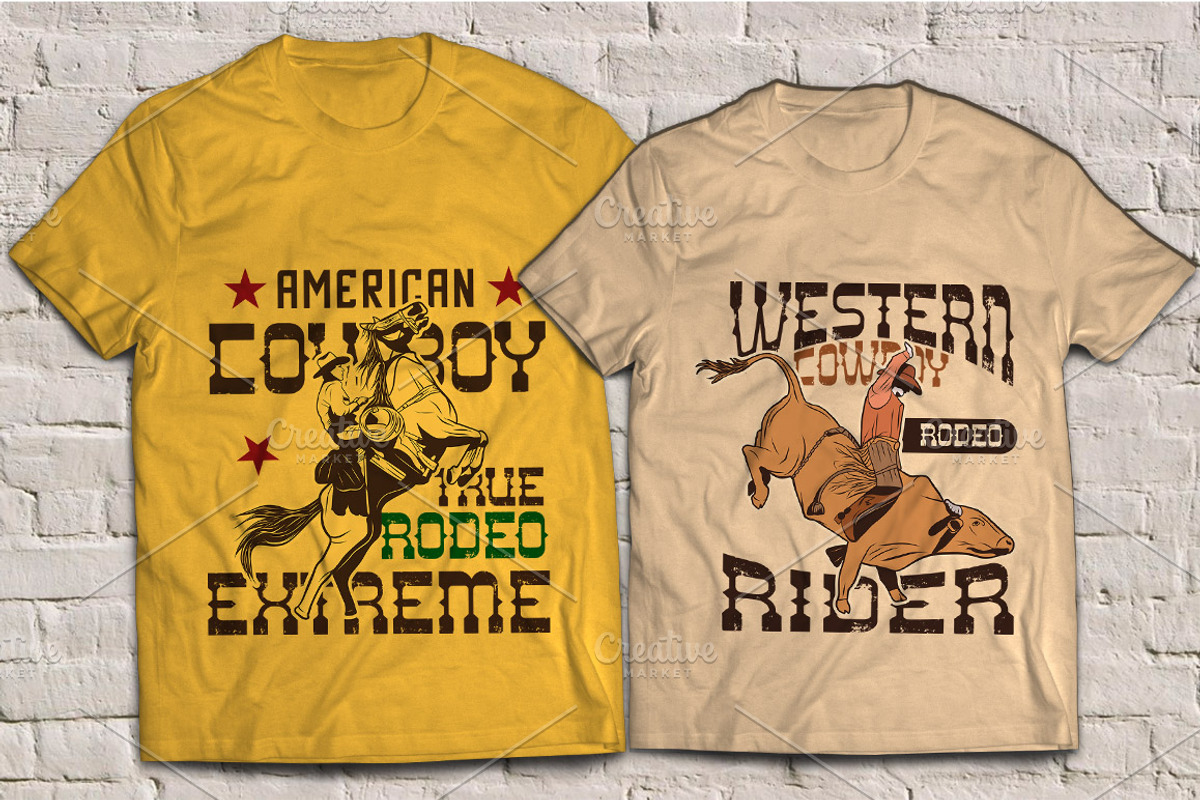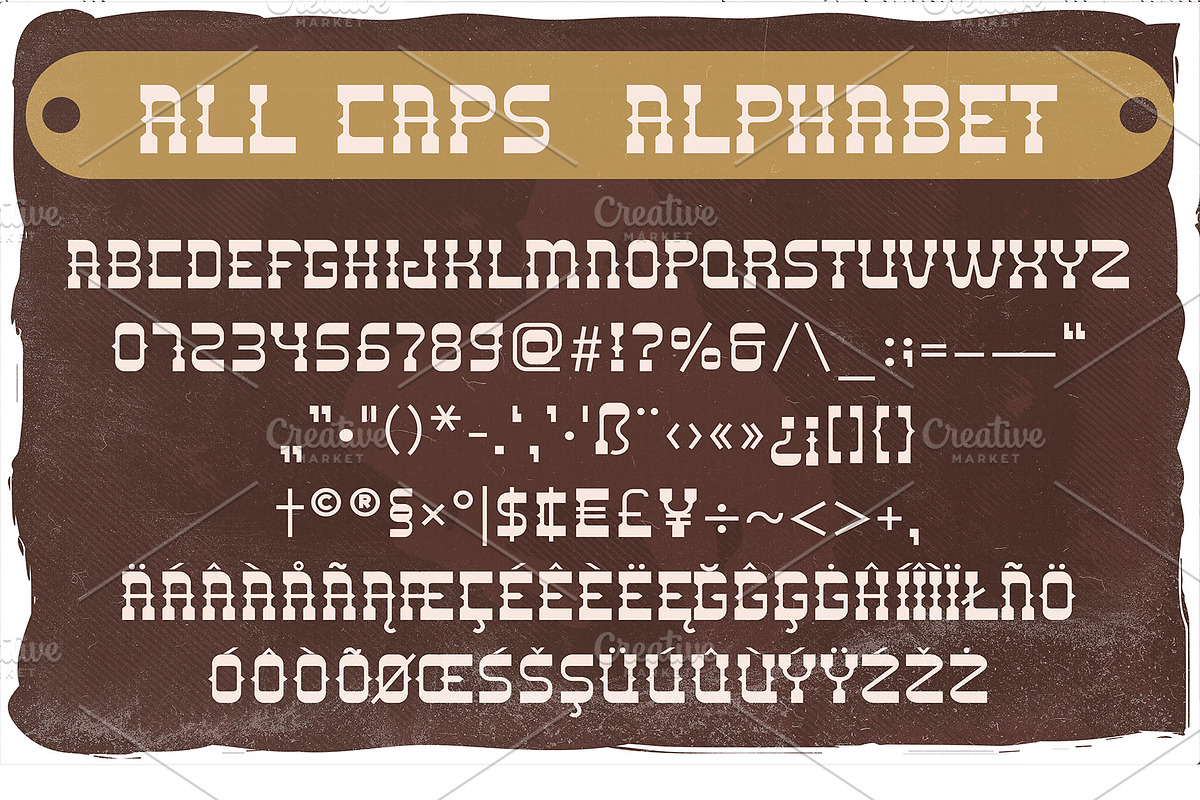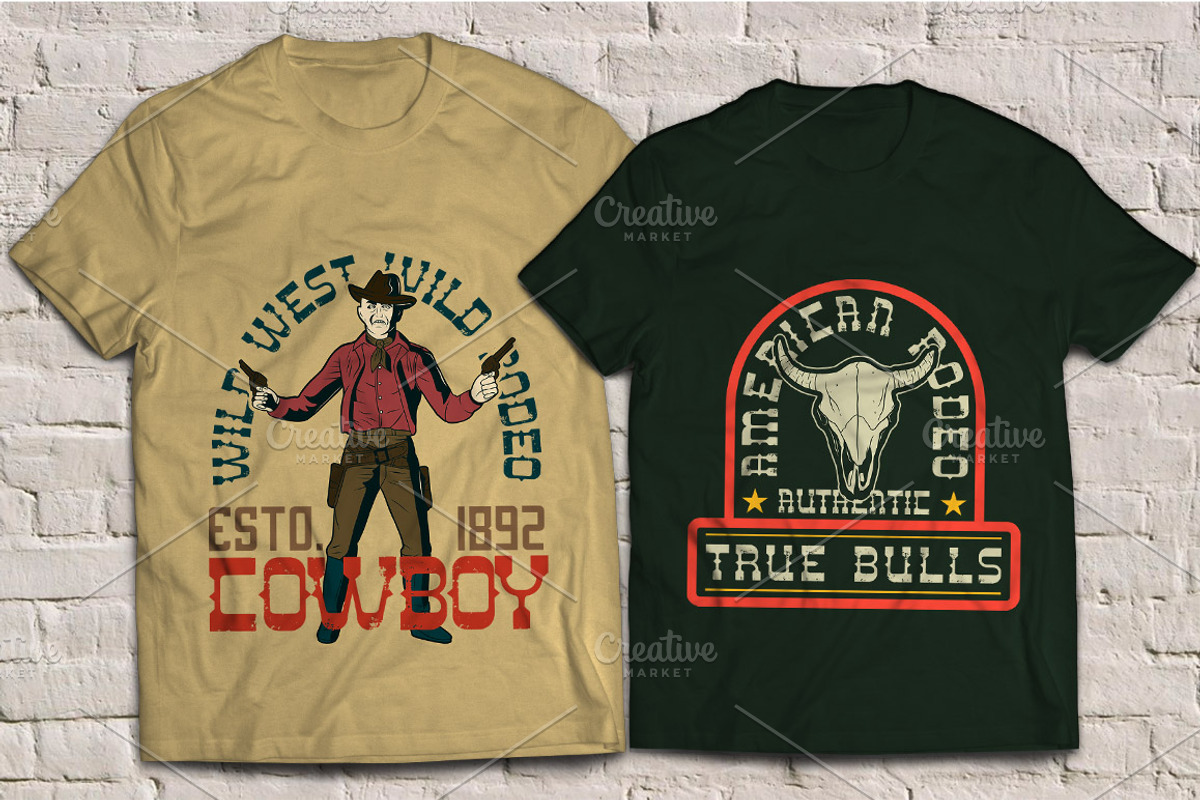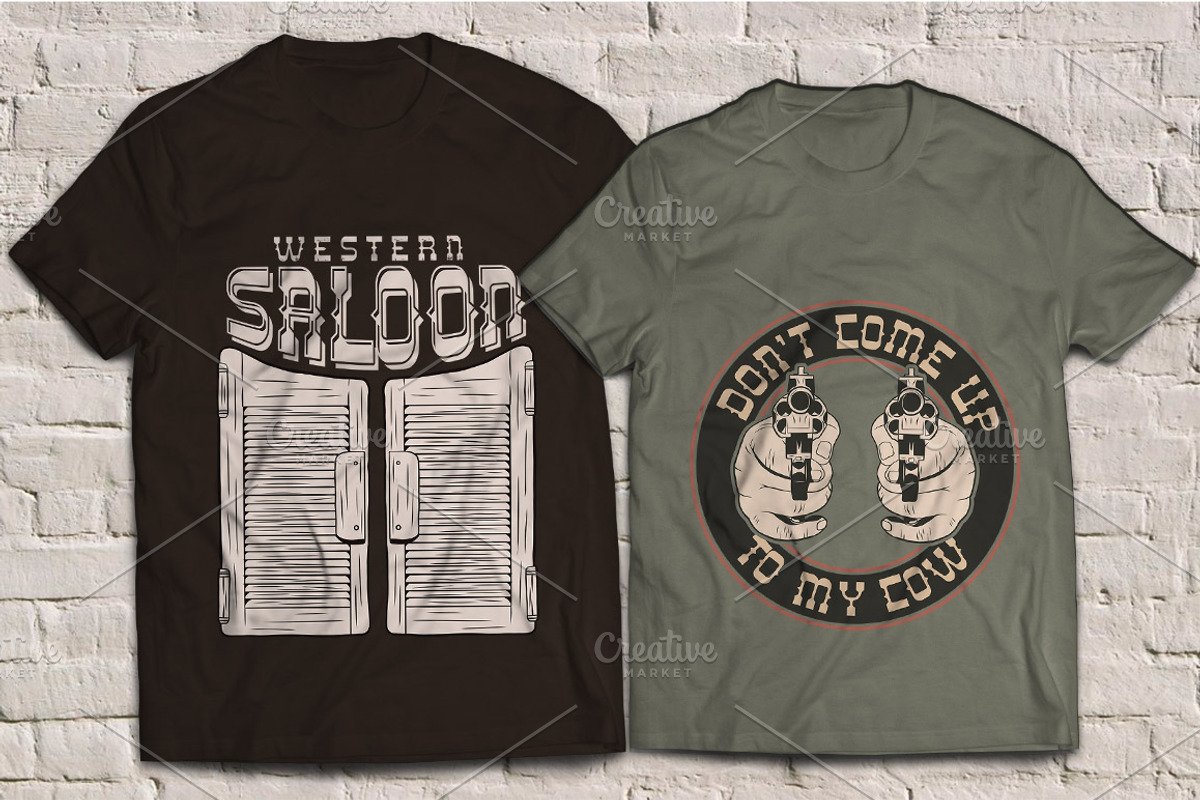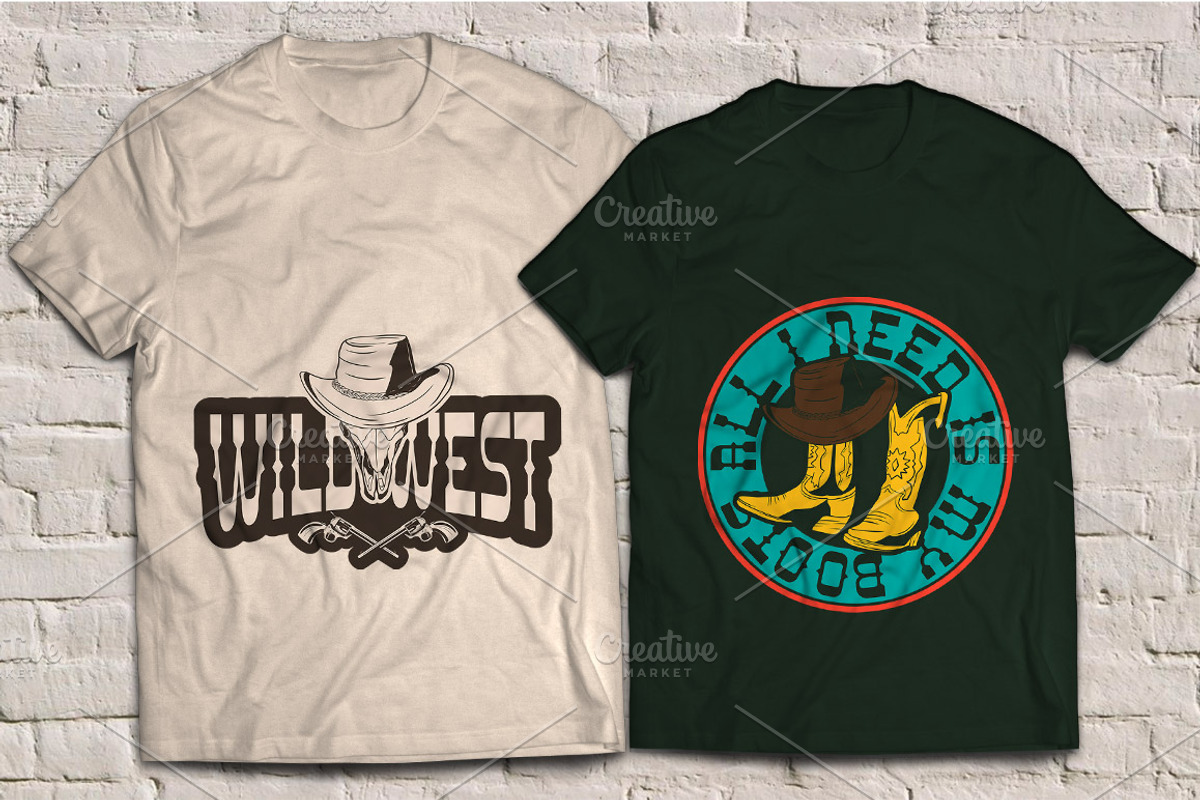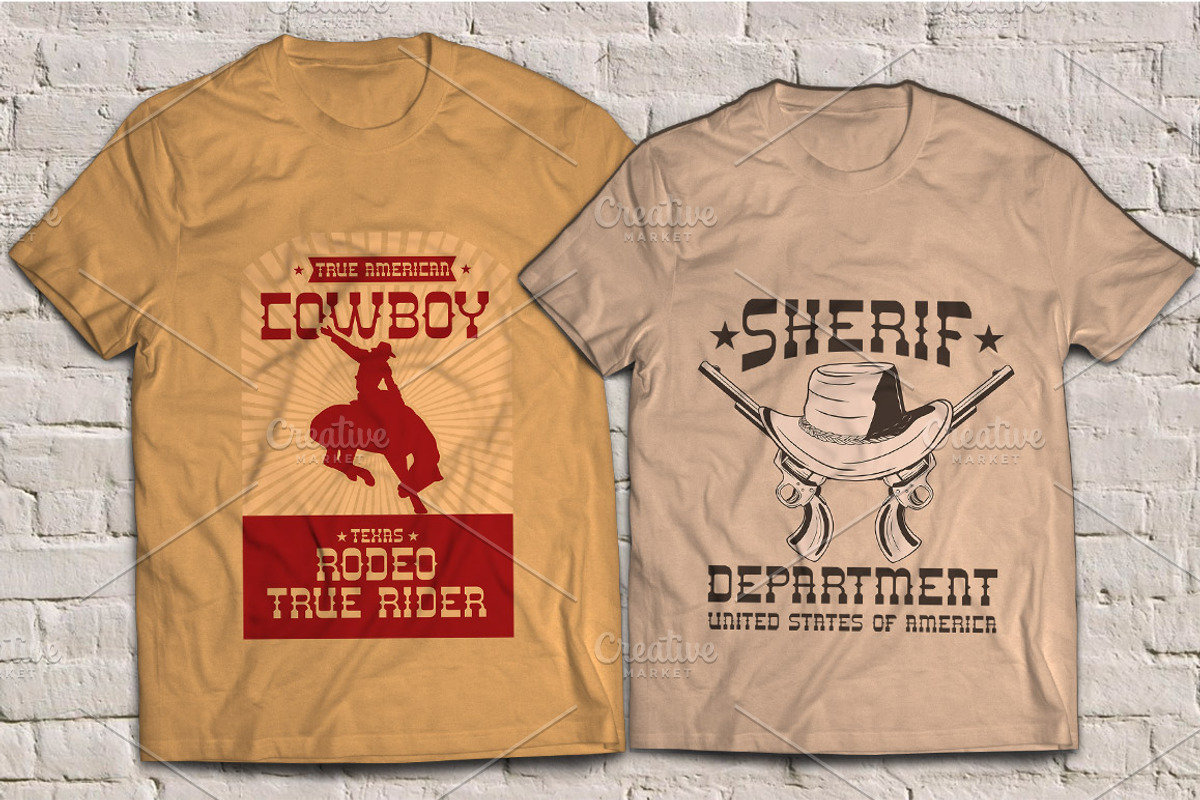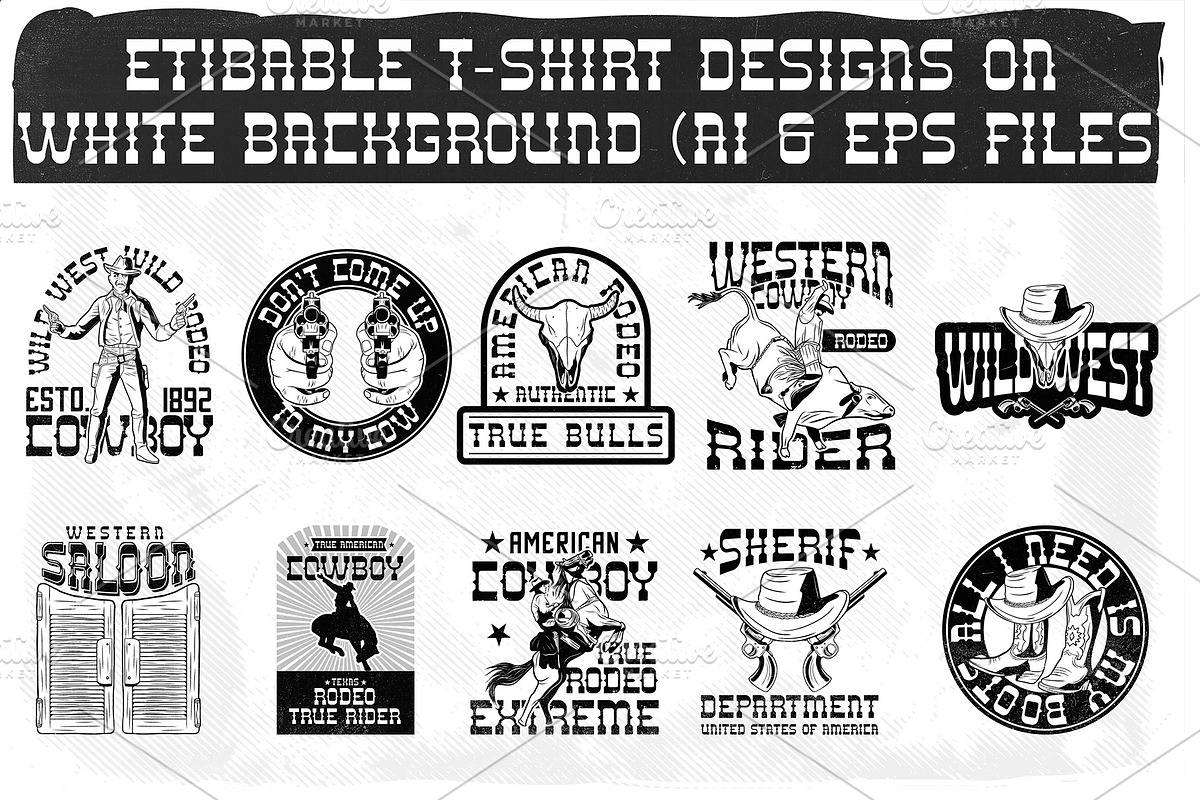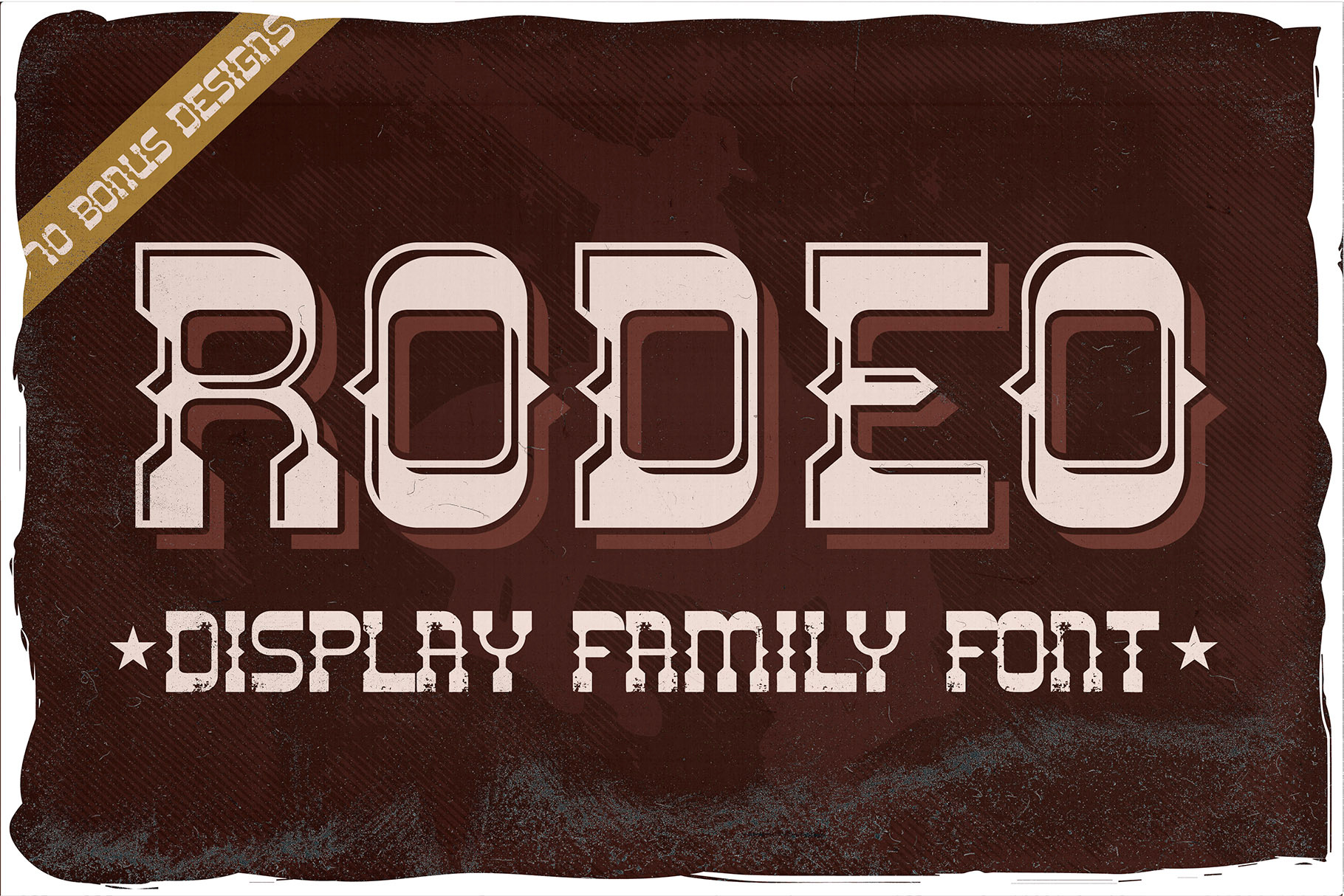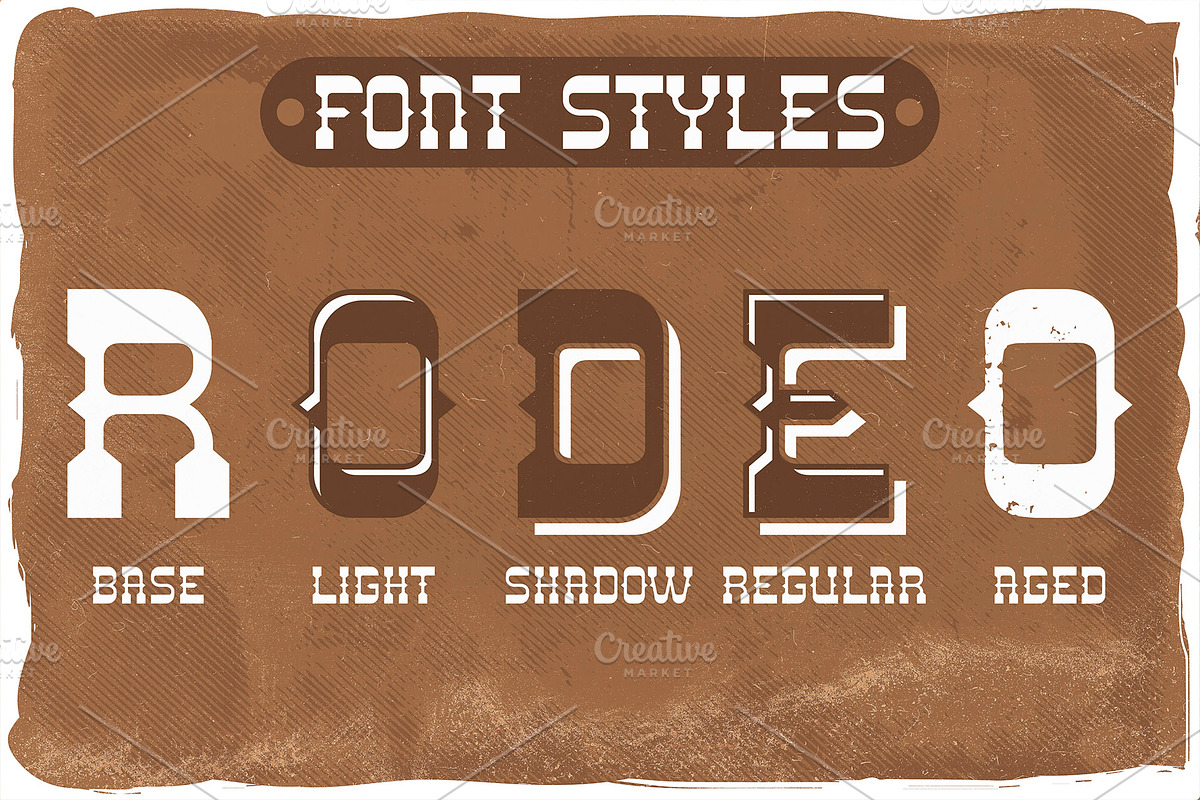
Rodeo font + 10 bonus designs
Introducing my newest western font called "Rodeo". This font was inspired by western cowboys and rodeo. It has wide language support of multilingual characters (check out all available characters in previews). Bonus 10 t-shirt designs..This font will look good on any vintage-styled designs like a poster, T-shirt, label, logo, etc.
- A lot of additional symbols, alternative characters, and multilingual support.